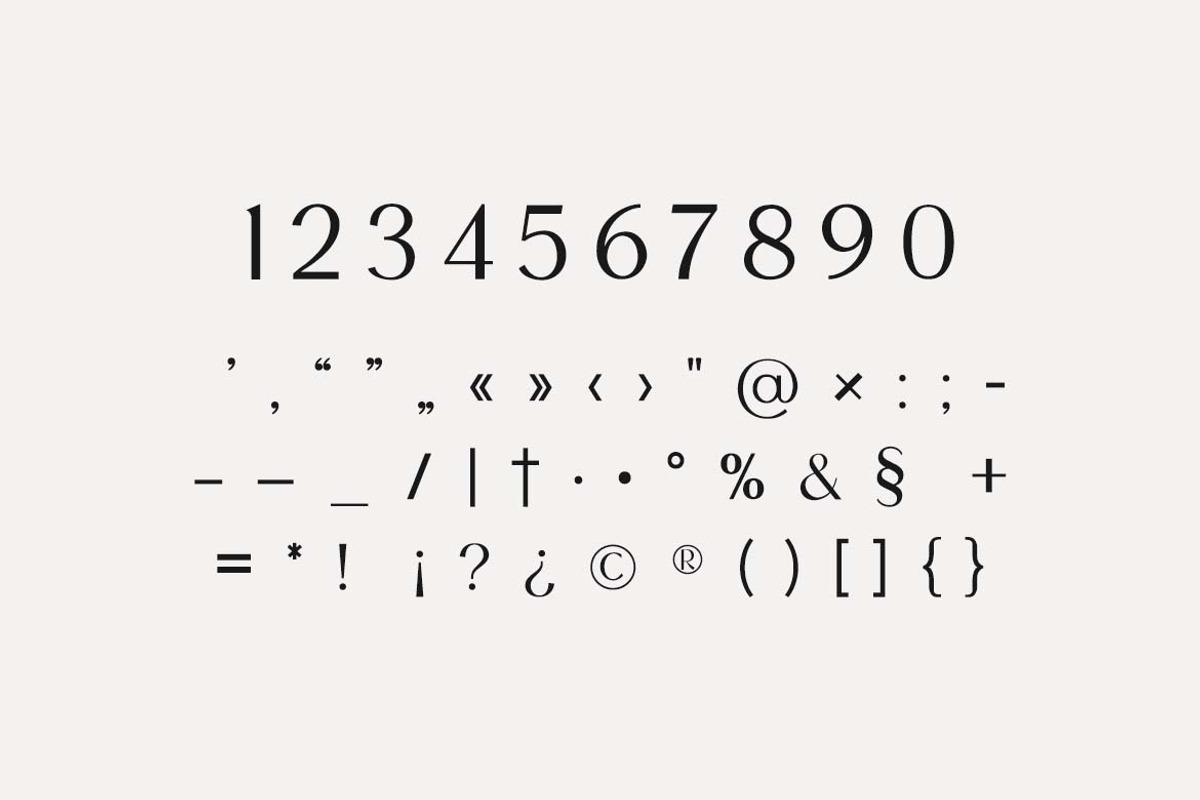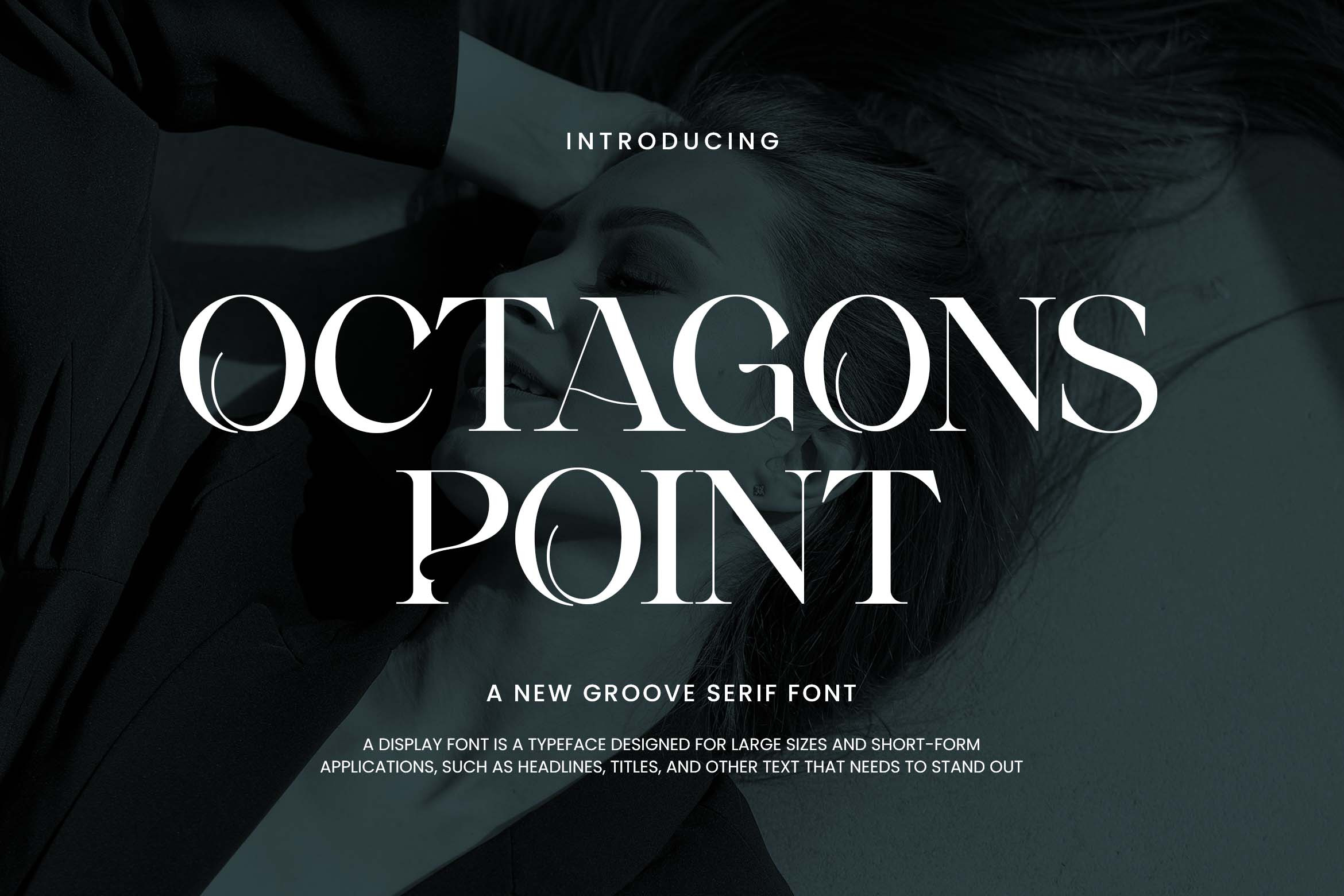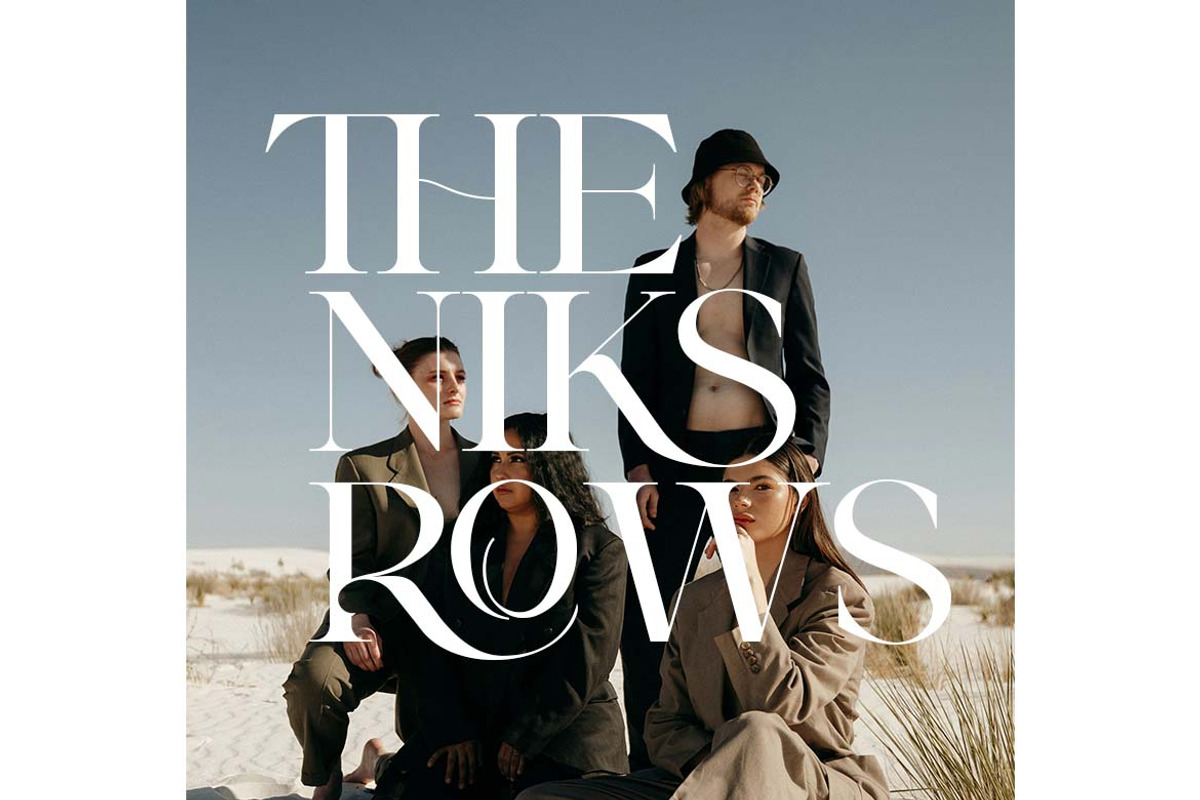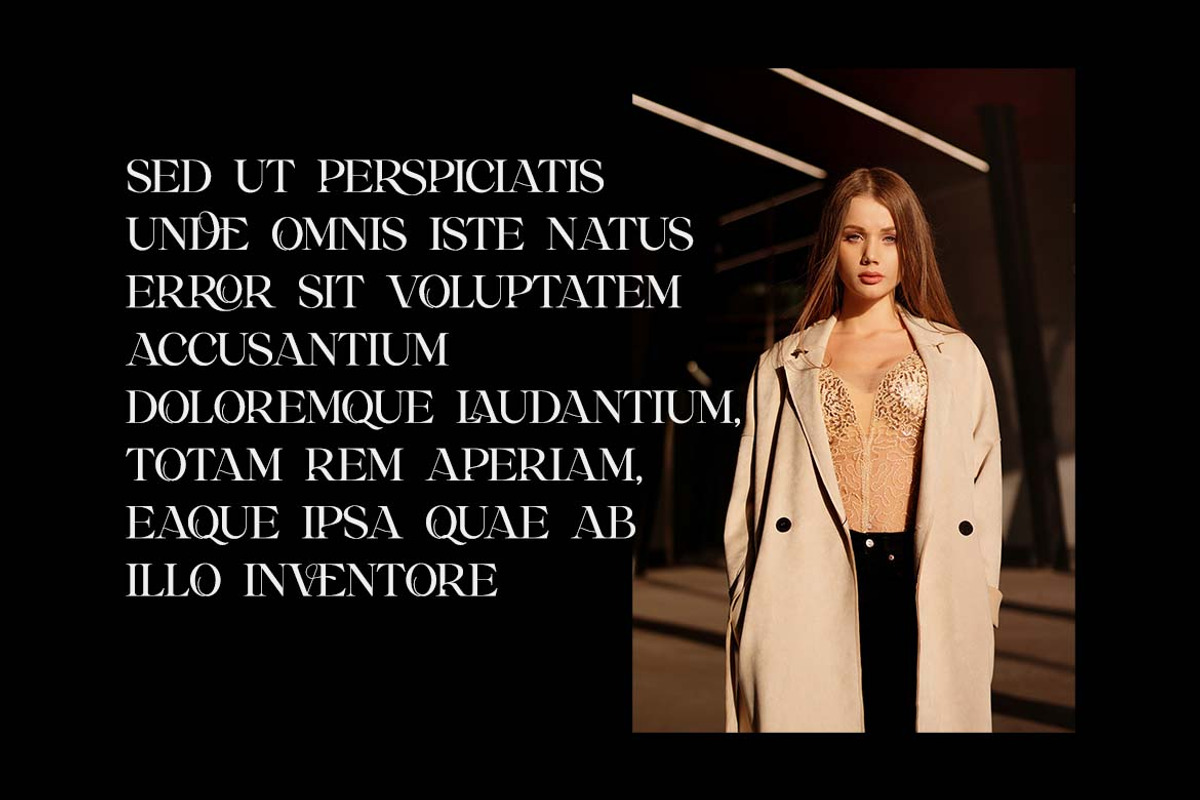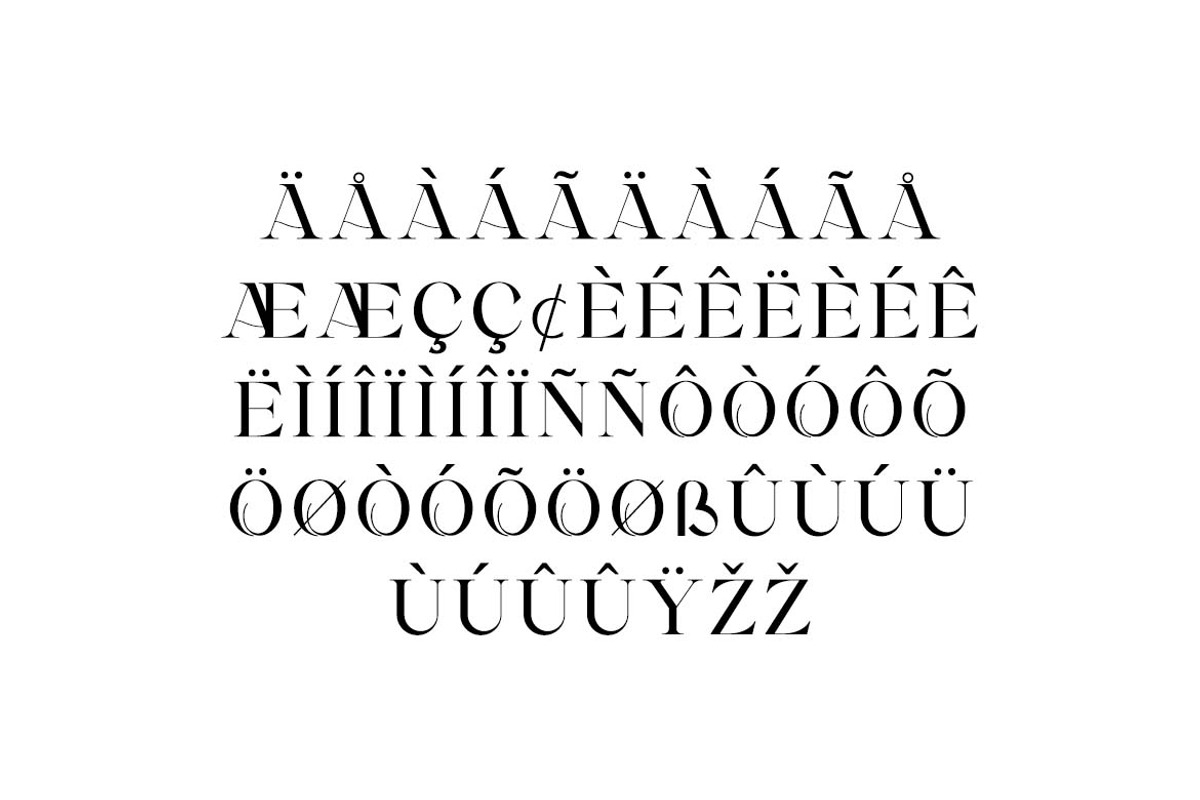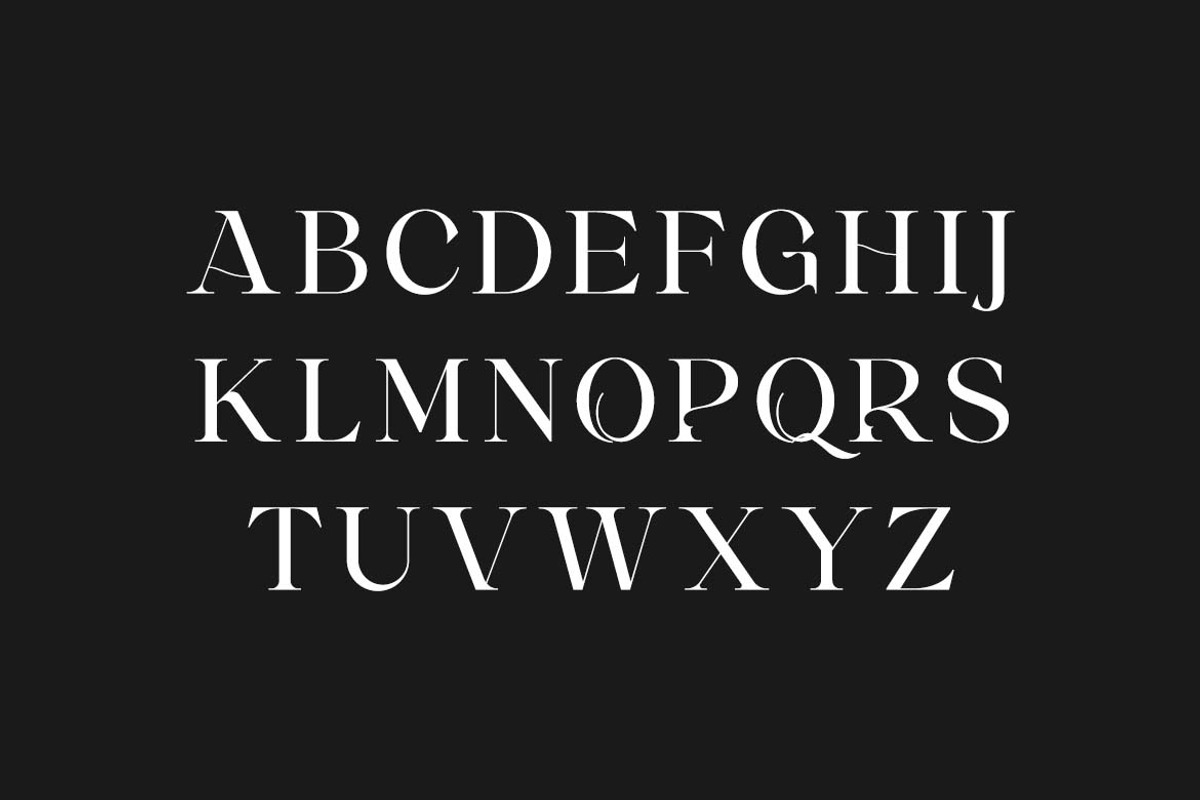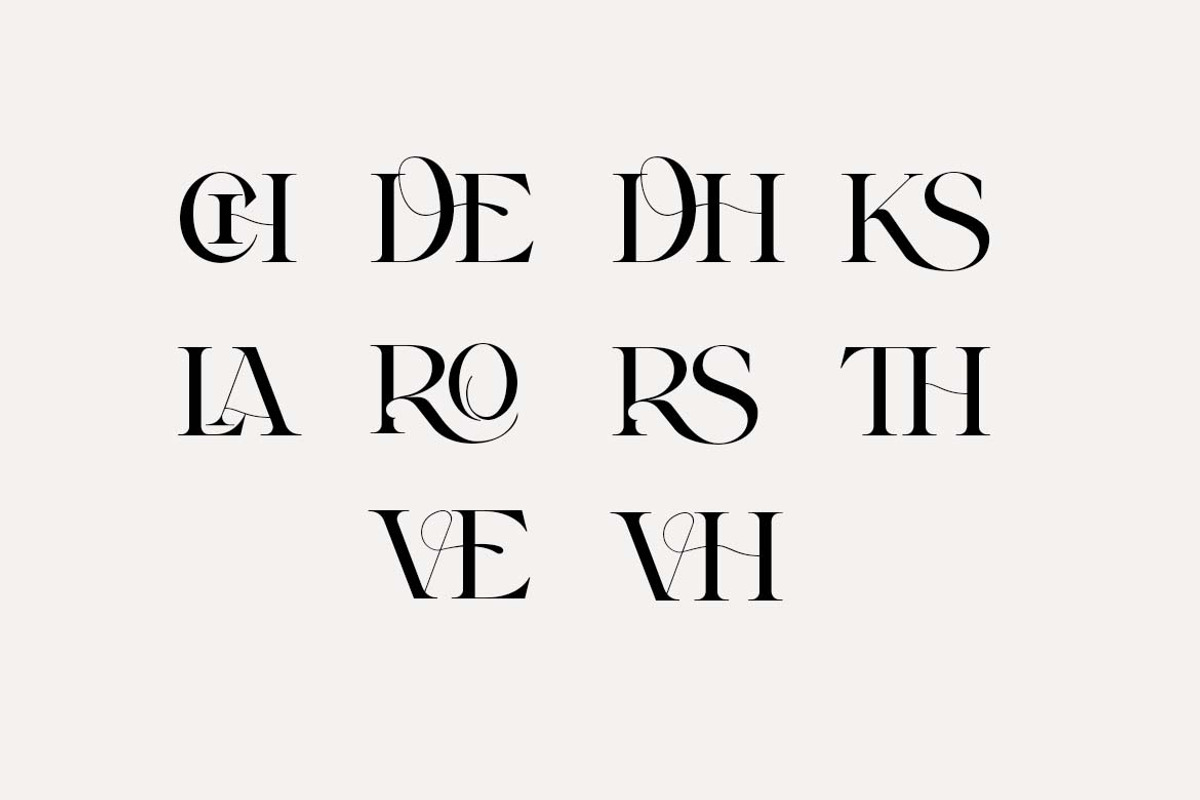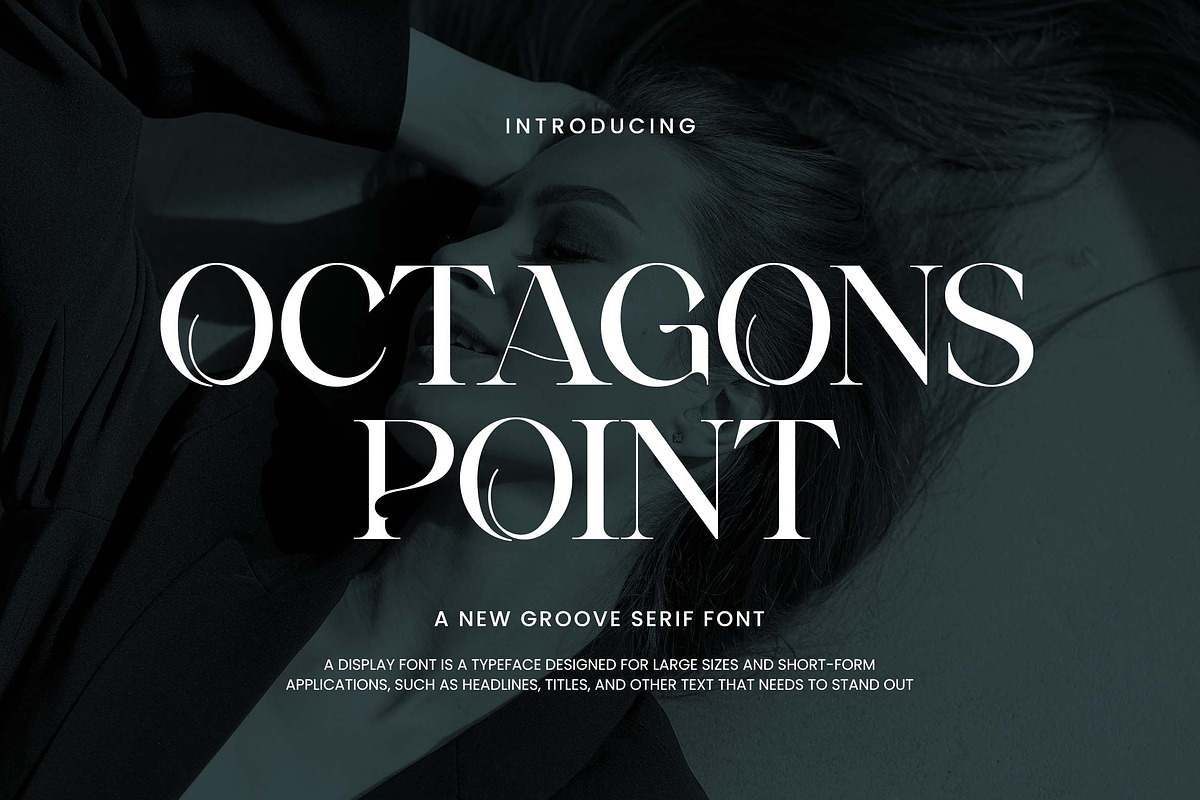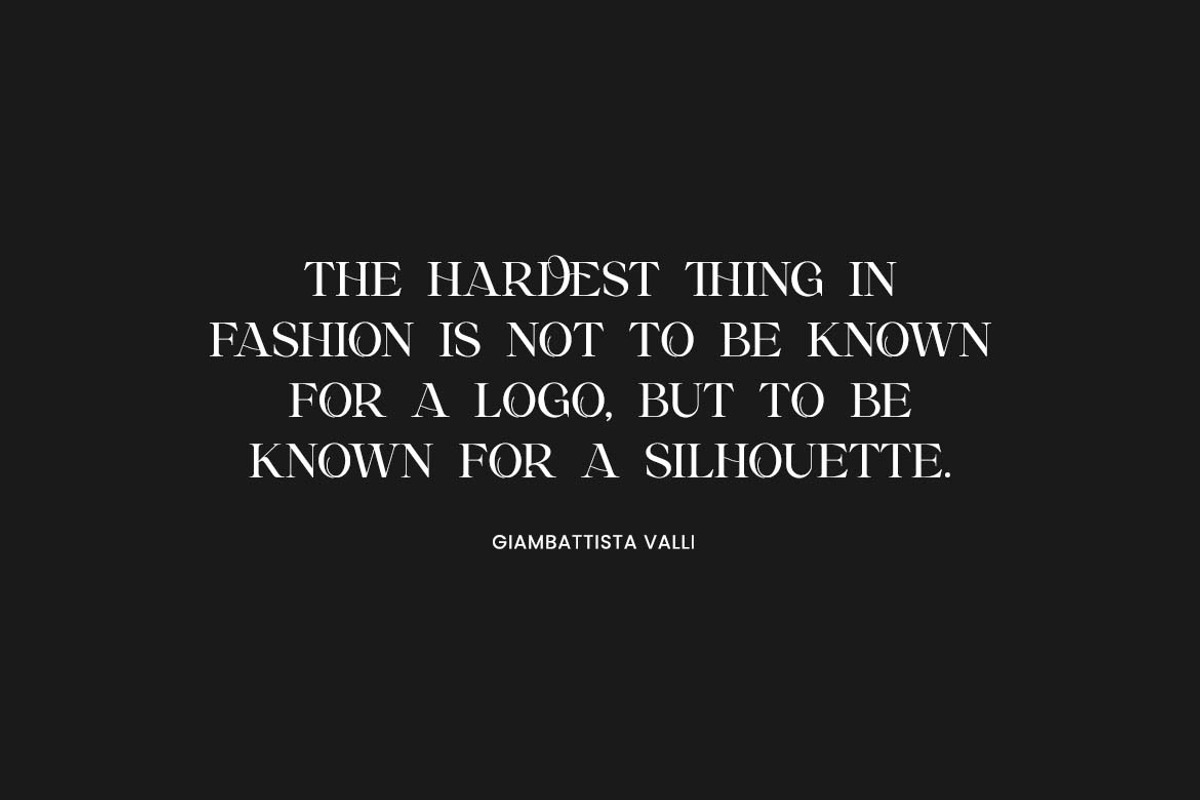
Octagons Point Groove Serif Font
Octagons Point Groove Serif Font. The modern display font feels beautiful classy, elegant, and stylish. This font is ideally suited for a wide variety of projects, such as signature, stationery, logo, wedding, typography quotes, magazine or book covers, website headers, branding, and more. Also, fashion-related branding or editorial design displays both masculine and feminine qualities.